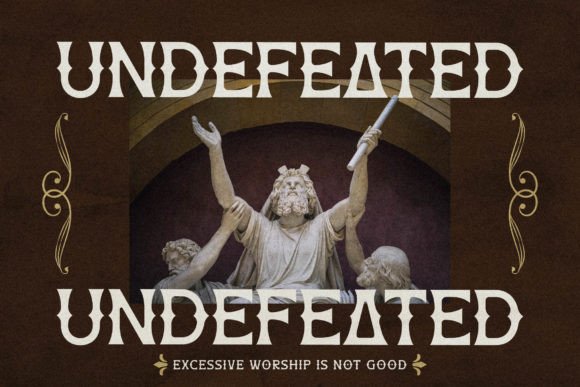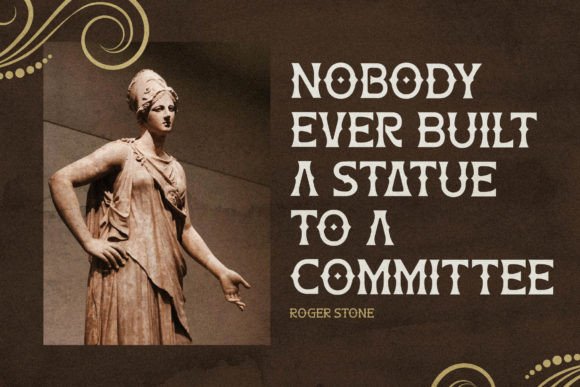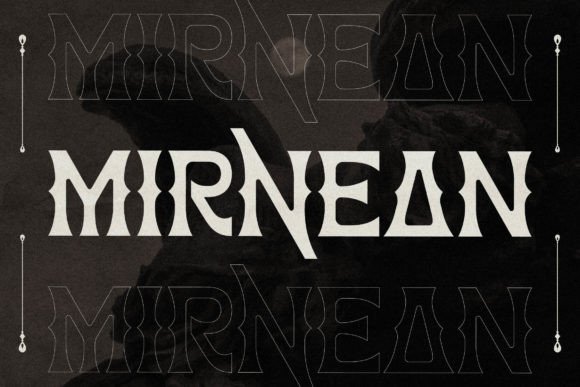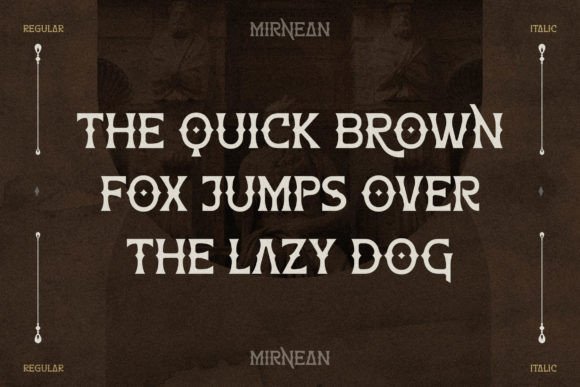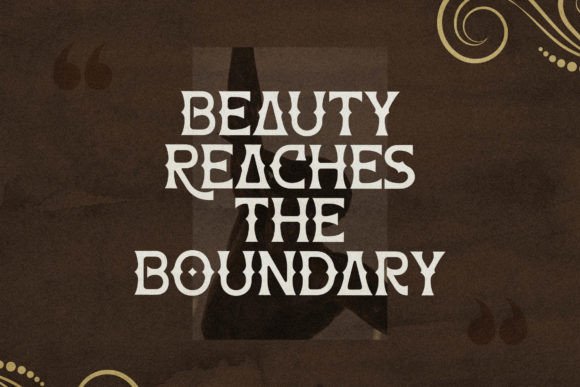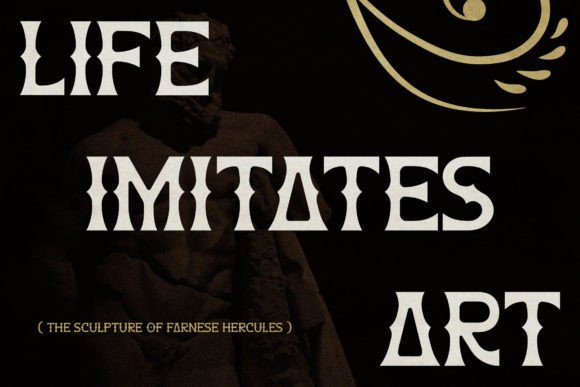
Introduction to Mirnean Font
Remember the moment when you stumbled upon the perfect font for your creative project? It’s like finding a hidden gem that elevates your entire design. For many designers, this moment is what makes all the hard work worth it. And, if you’re looking for a font that exudes elegance and sophistication, look no further than the Mirnean Font.
As a timeless serif font with a unique gothic twist, the Mirnean Font is a valuable resource for designers seeking to add a touch of luxury to their work. Its versatility makes it perfect for a wide range of applications, from book and movie title design to fashion branding and magazine layouts. Whether you’re working on a creative project with a transparent background or need a high-quality font for your next design, the Mirnean Font is an excellent choice.
Key Features of Mirnean Font
- High-quality, professional font designed for creative projects, suitable for a wide range of applications, including logos, branding, and graphic design.
- Transparent background, allowing for seamless integration with any design, and providing a clean and modern look.
- Unique characteristics, including elegant lines, refined curves, and a sophisticated feel, making it an excellent design resource for creative projects.
Honest Review: Mirnean Font
I recently stumbled upon the Mirnean Font, and I must say it’s been a game-changer for my creative projects. As a designer, I’m always on the lookout for high-quality design resources that can elevate my work. The Mirnean Font definitely delivers.
- ✨ High-quality design: The Mirnean Font boasts a clean and modern aesthetic that’s perfect for a variety of creative projects, from logos to typography-heavy designs.
- ✨ Transparent background: The font’s transparent background allows for seamless integration with any design element, giving you complete creative control.
- ⚠️ Limited font styles: While the Mirnean Font is beautiful, it’s limited to a single style, which might not be ideal for designers who need more flexibility.
Overall, I’m impressed with the Mirnean Font’s quality and versatility. While it may have some limitations, it’s an excellent resource for designers working on smaller-scale creative projects. Give it a try and see how it can elevate your design game!